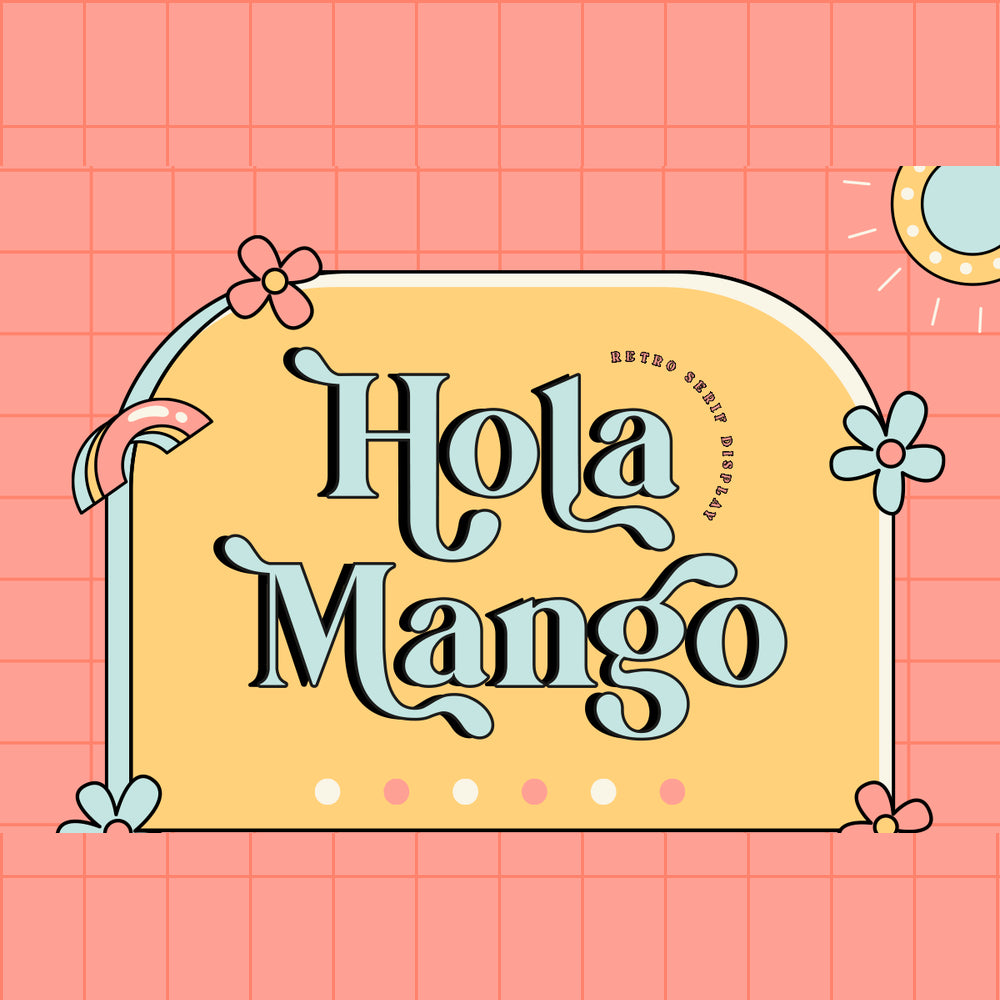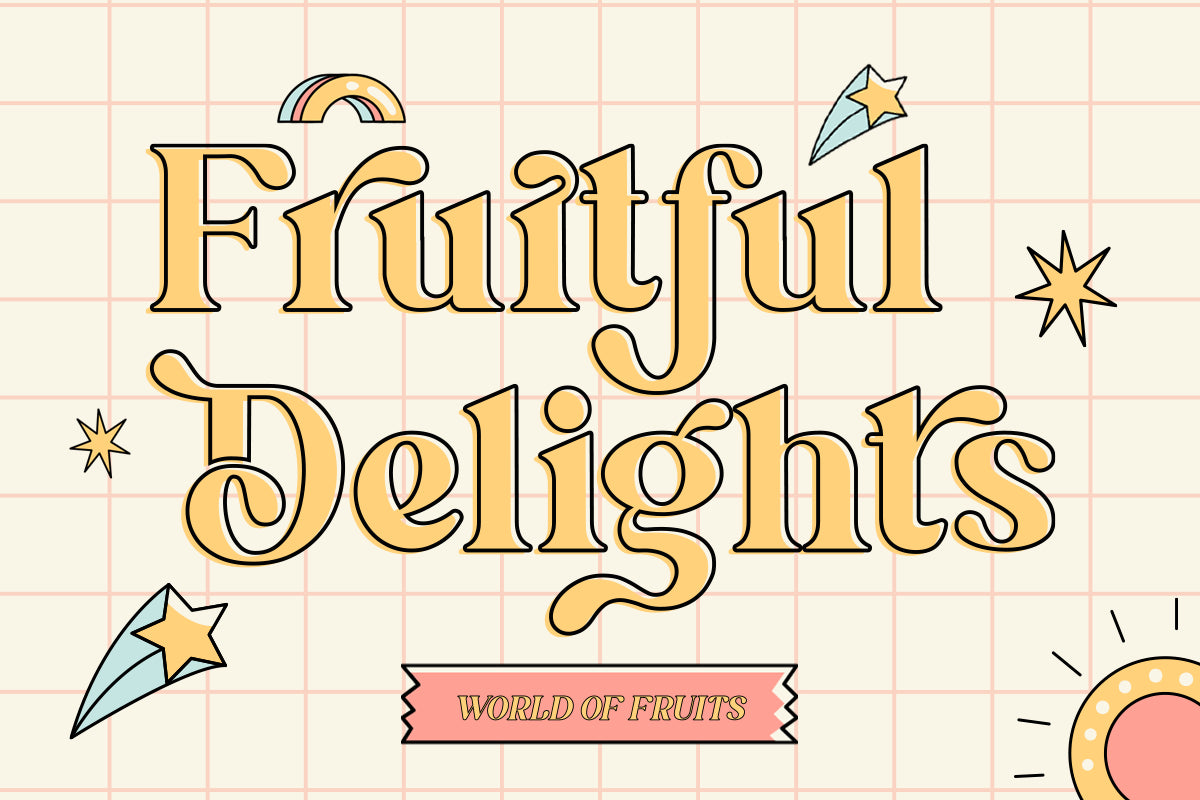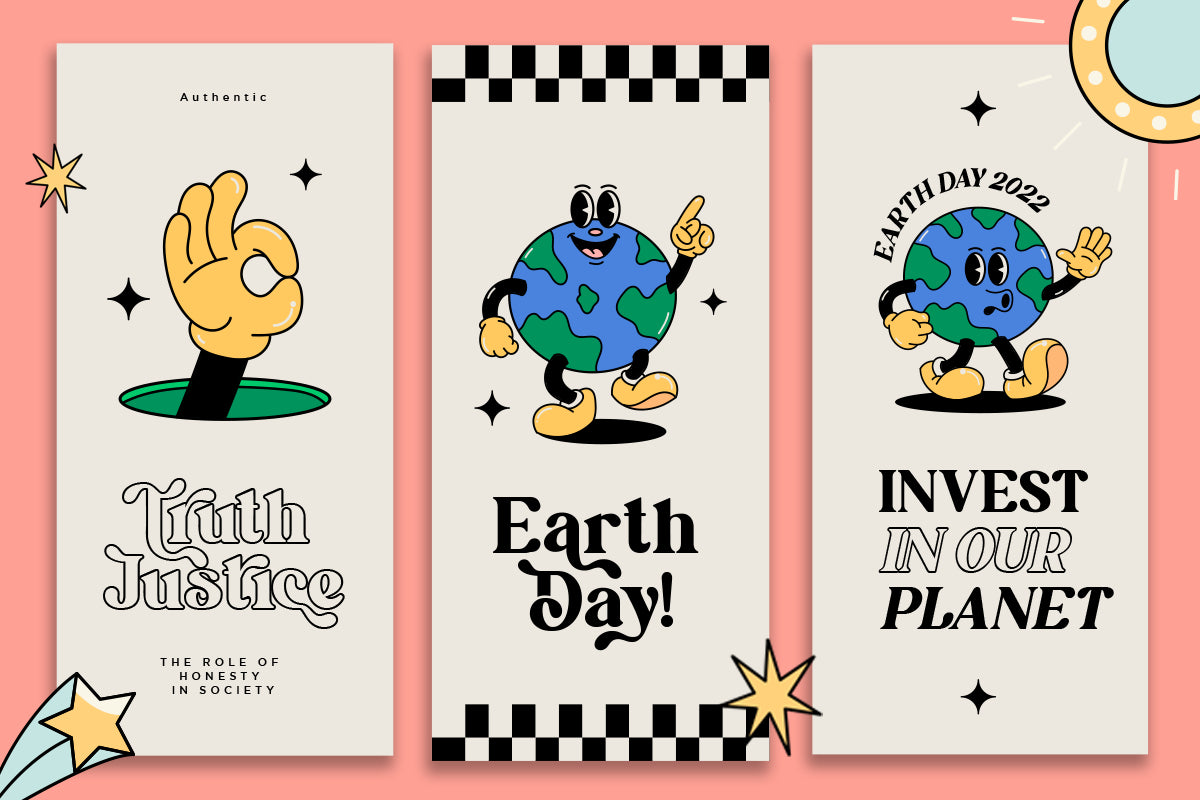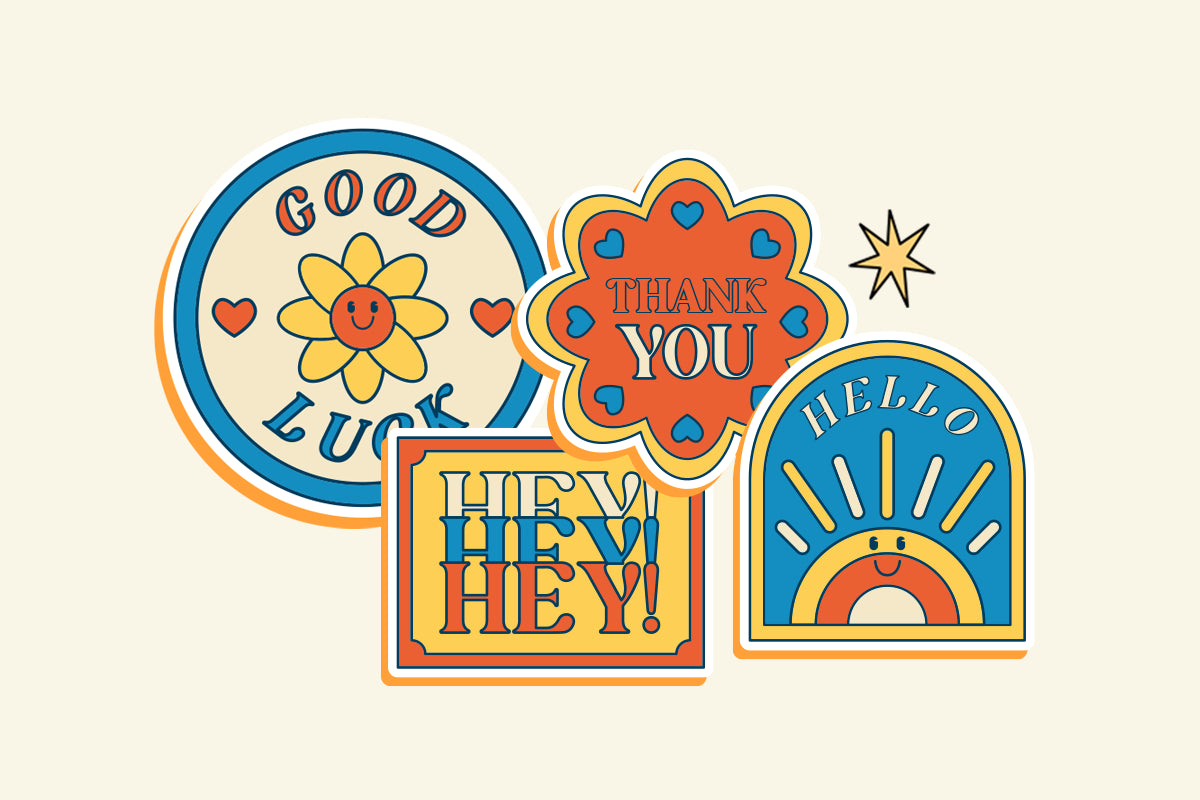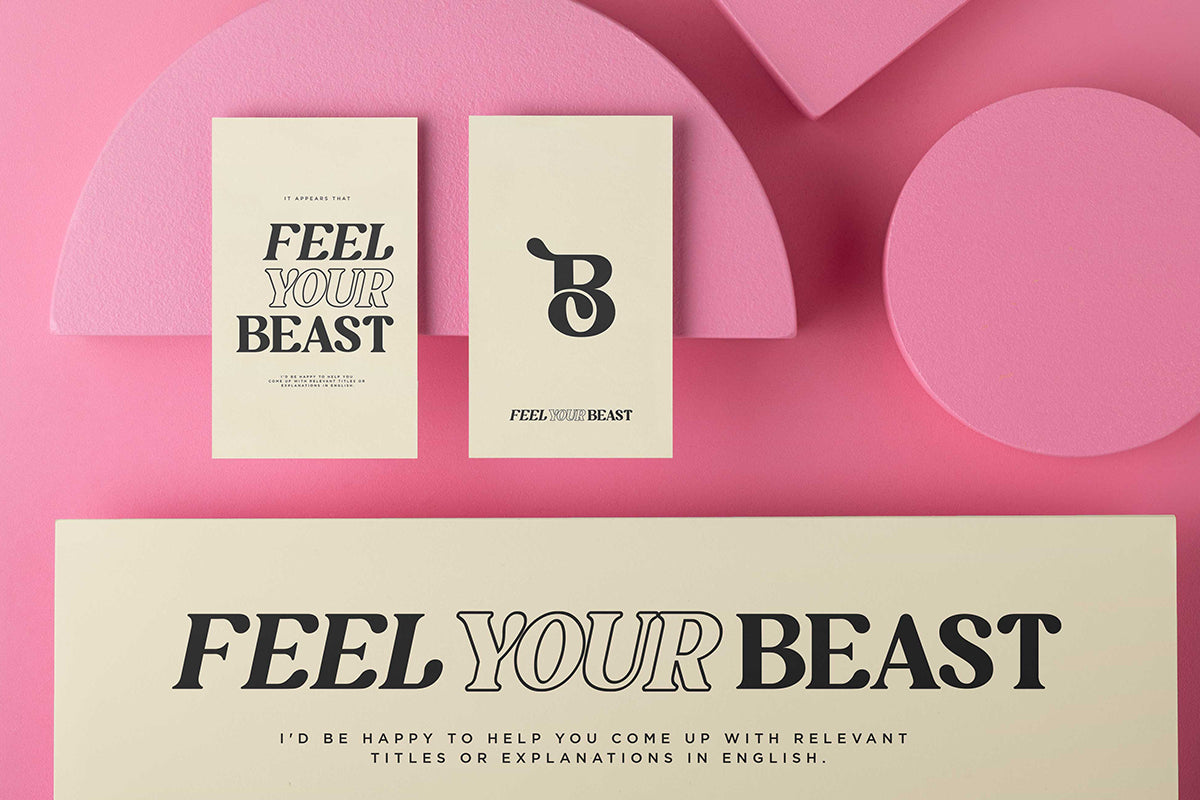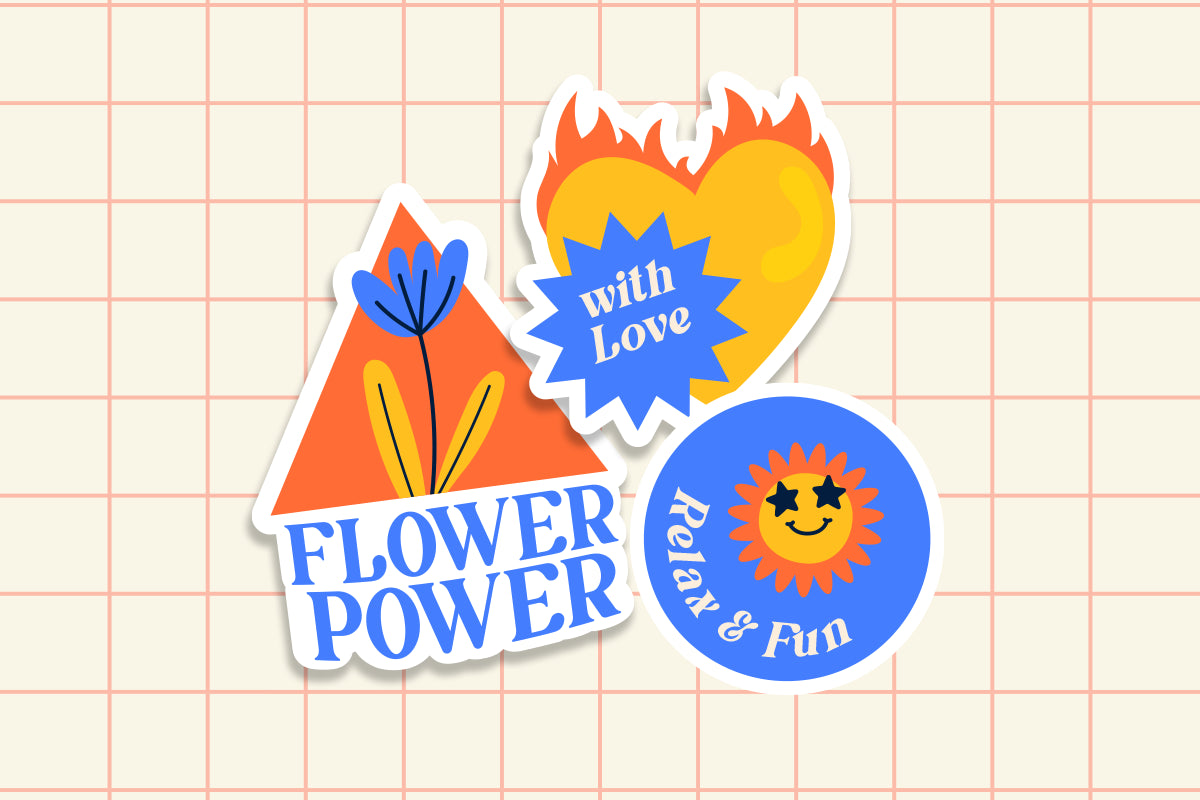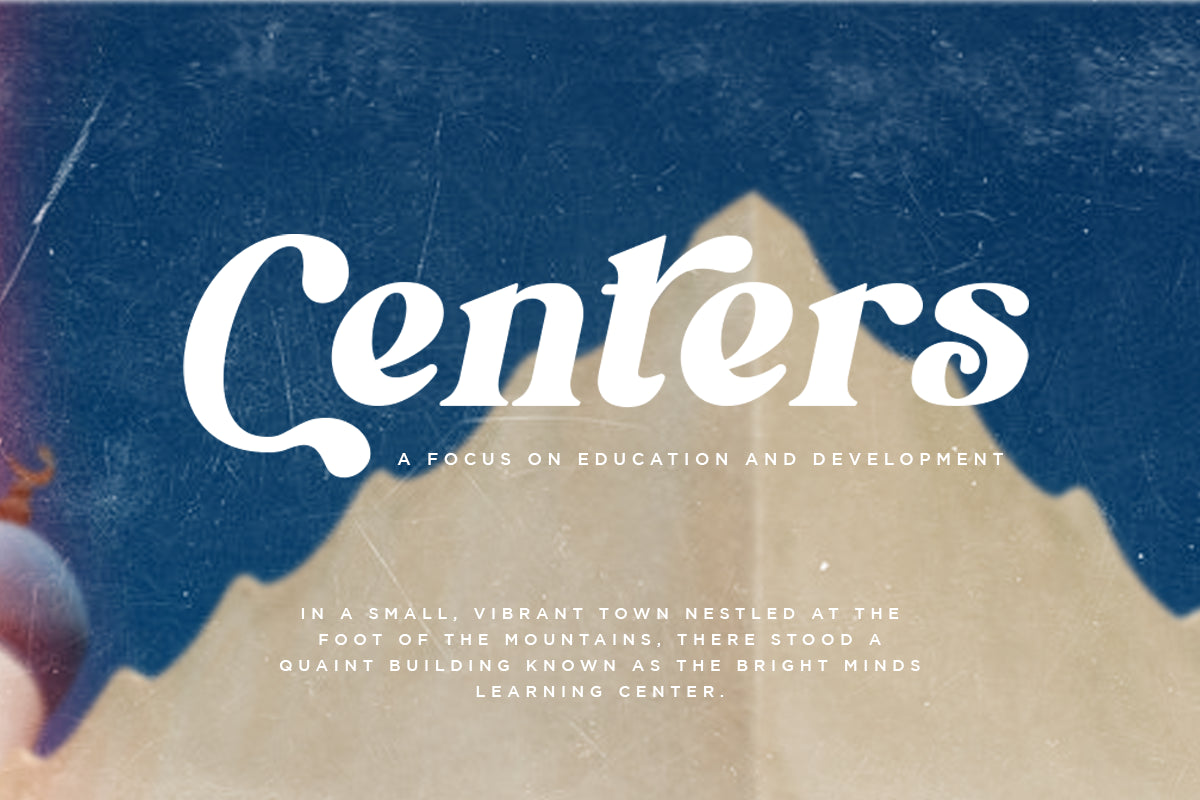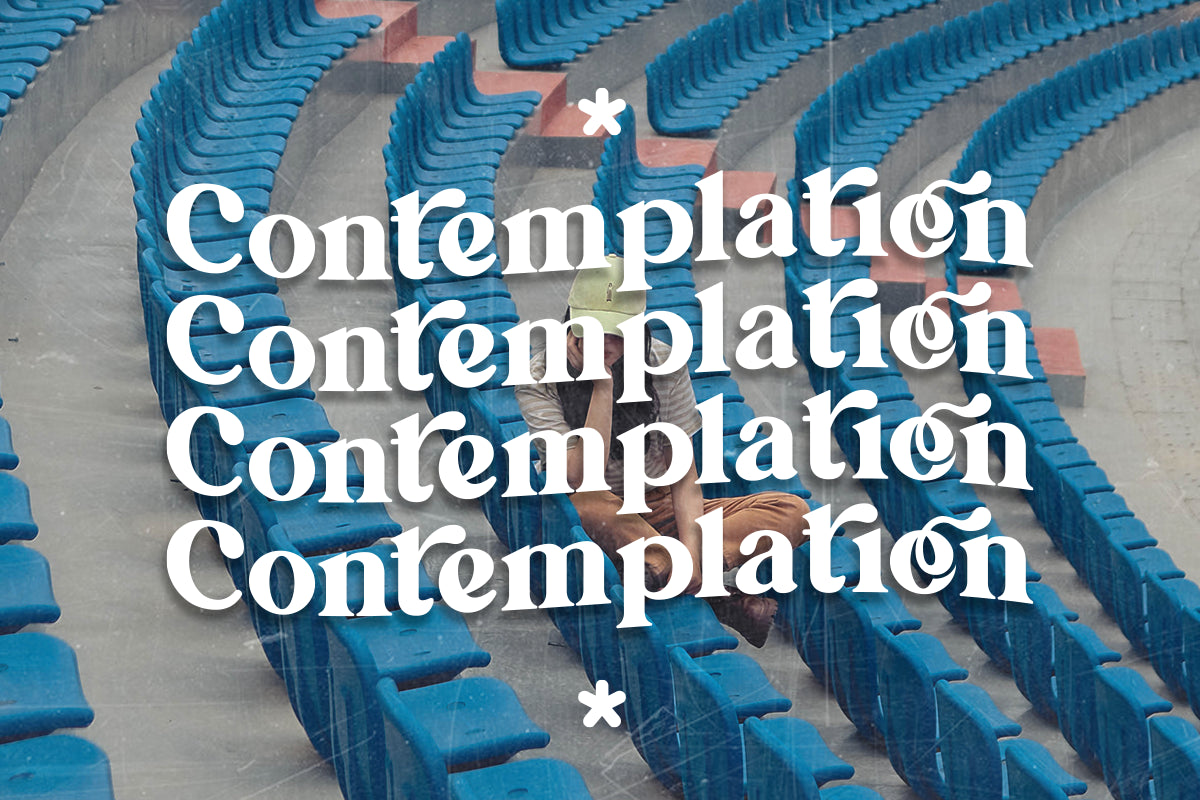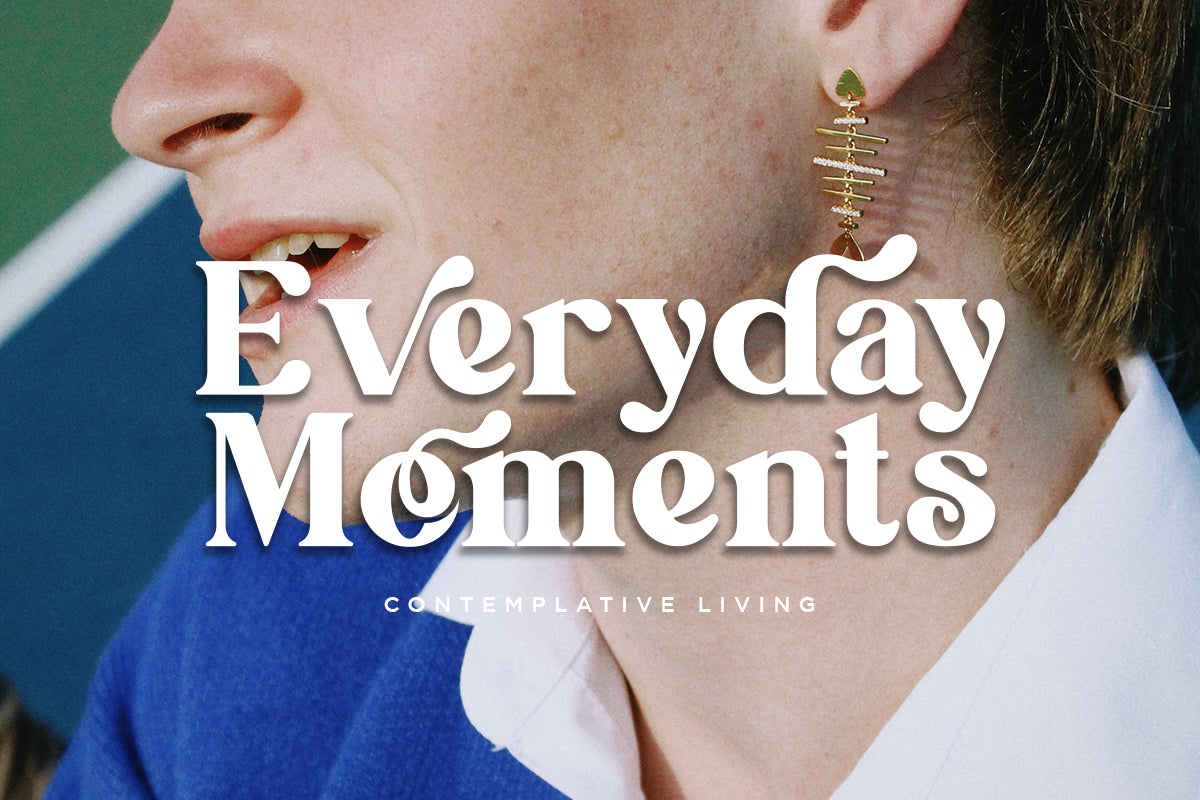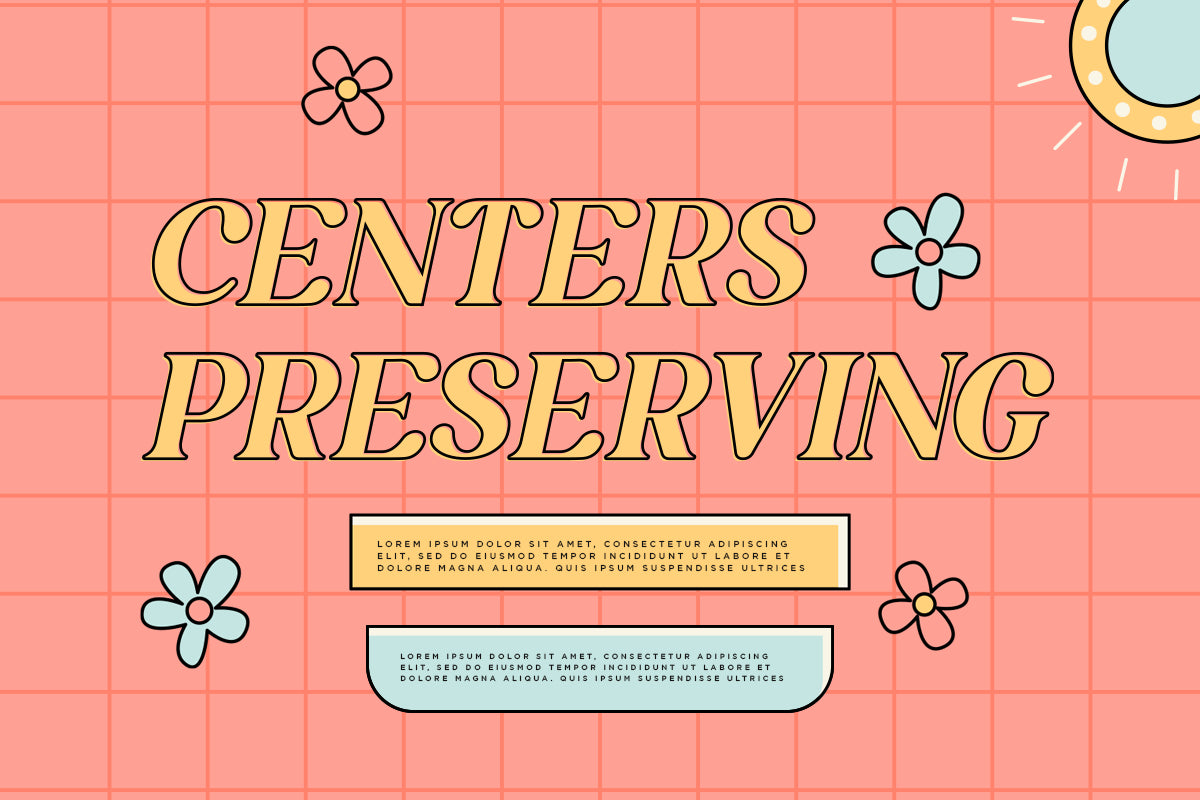
Hola Mango - Groovy Retro Font
Hola Mango is a playful retro serif font with bold, expressive letterforms and a charming vintage personality. Designed to bring a fun and nostalgic feel to your creative projects, it works beautifully for branding, posters, packaging, editorial designs, apparel, food and beverage projects, social media graphics, and lifestyle products.
With its distinctive character and versatile display style, Hola Mango is perfect for headlines, logos, labels, advertisements, and eye-catching typography compositions.
• Regular and Italic
• Special Alternates
• Uppercase and Lowercase
• Number, Symbol, and Punctuation
Hola Mango is a retro serif display font featuring bold letterforms with regular and italic styles, special alternates, uppercase and lowercase characters, numbers, symbols, and punctuation. The font includes multilingual support and is provided in OTF, TTF, and WOFF file formats.